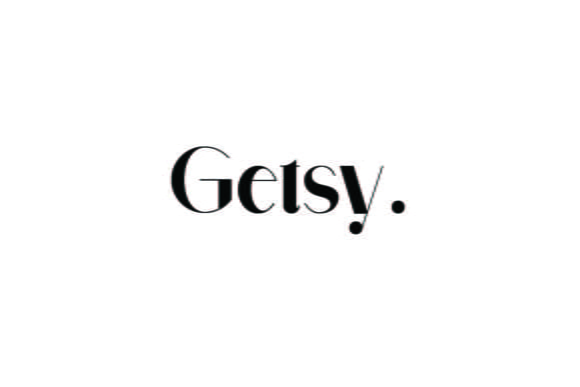
Getsy Font
Getsy Font is perfect for modern branding, contemporary logos, tech startups, digital interfaces, mobile apps, minimalist posters, editorial designs, corporate presentations, sleek product packaging, business cards, website headers, and any design project that requires a clean and professional typographic solution.
What makes Getsy Font exciting is its streamlined design that prioritizes clarity and modern aesthetics without sacrificing personality. The font's balanced proportions and contemporary styling make it incredibly versatile across various applications, from digital platforms to print media. Its professional yet approachable character helps brands communicate effectively with modern audiences while maintaining a fresh and current visual identity.
The Getsy Font family typically includes multiple weights, uppercase and lowercase letters, numerals, punctuation marks, and extended character sets for international language support.